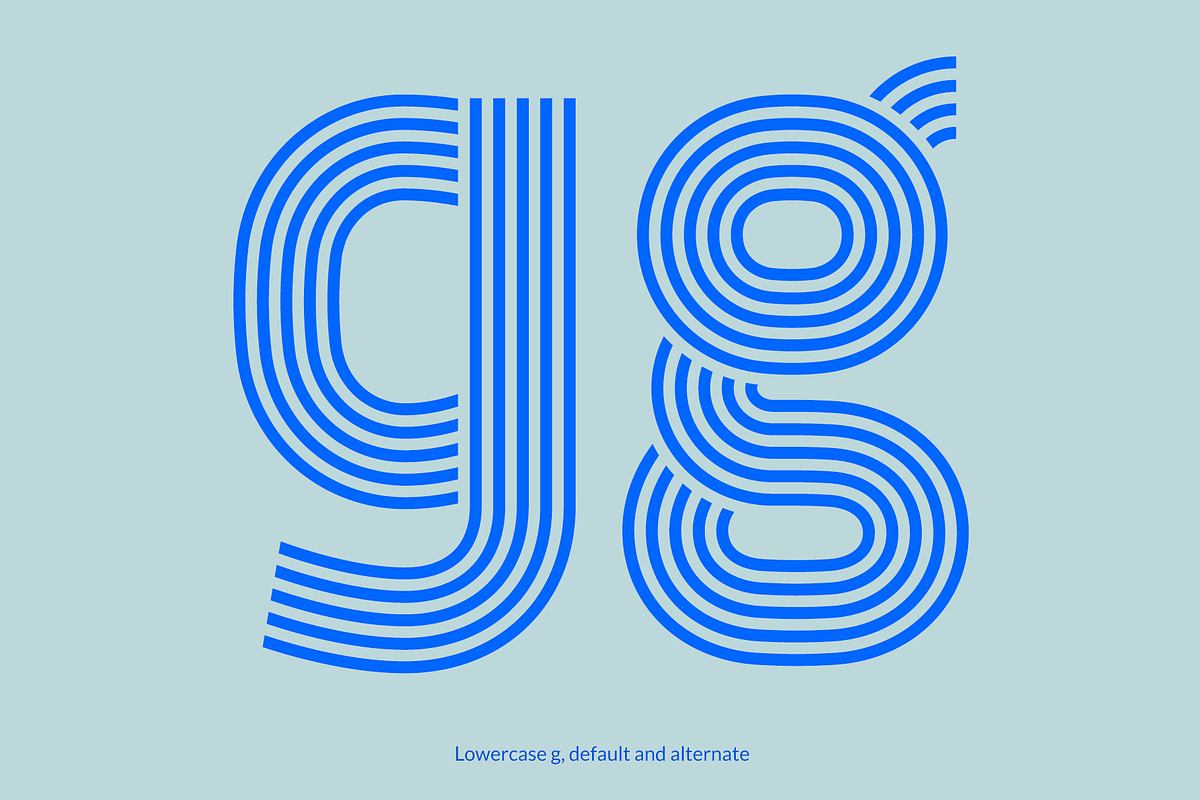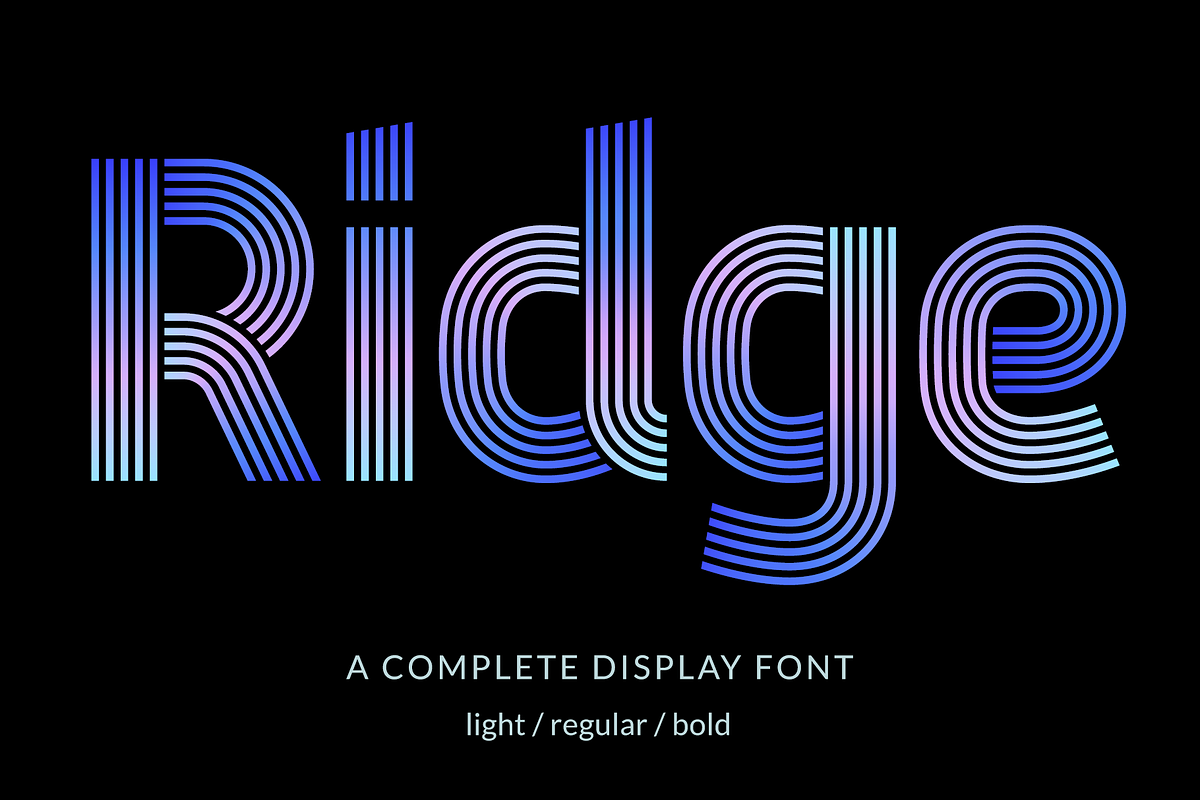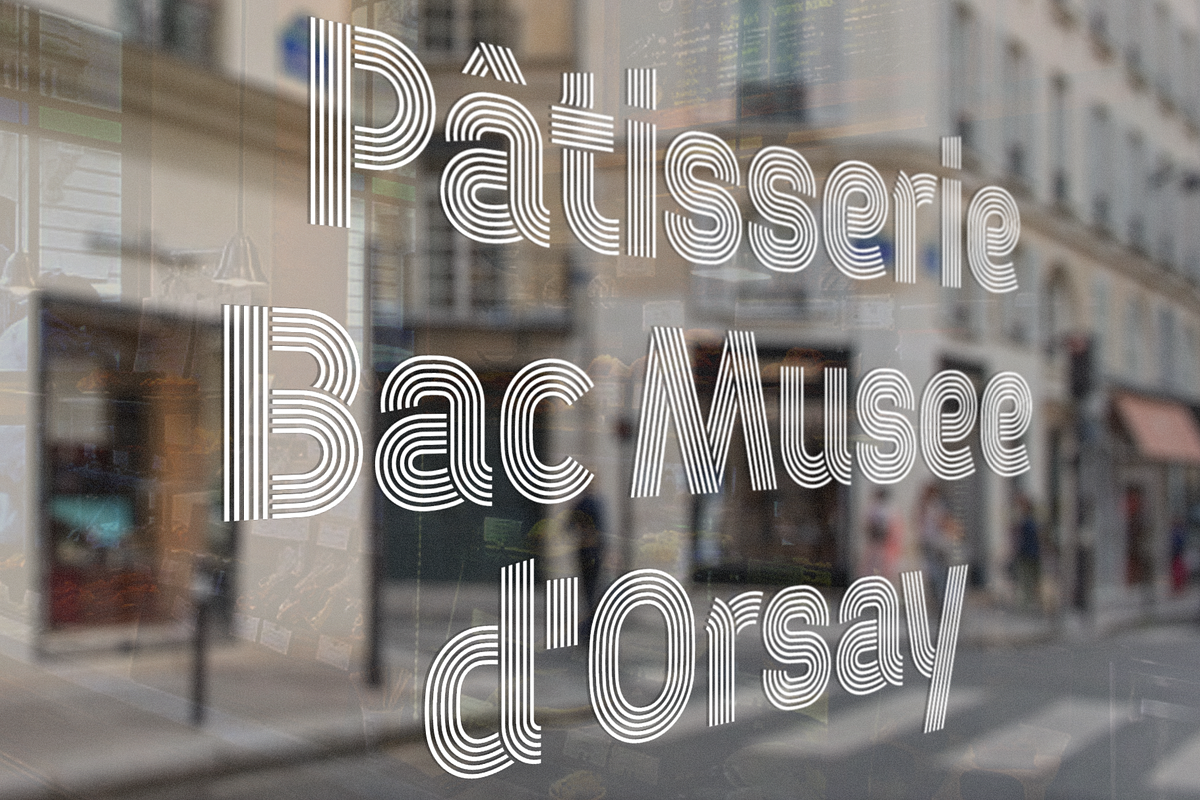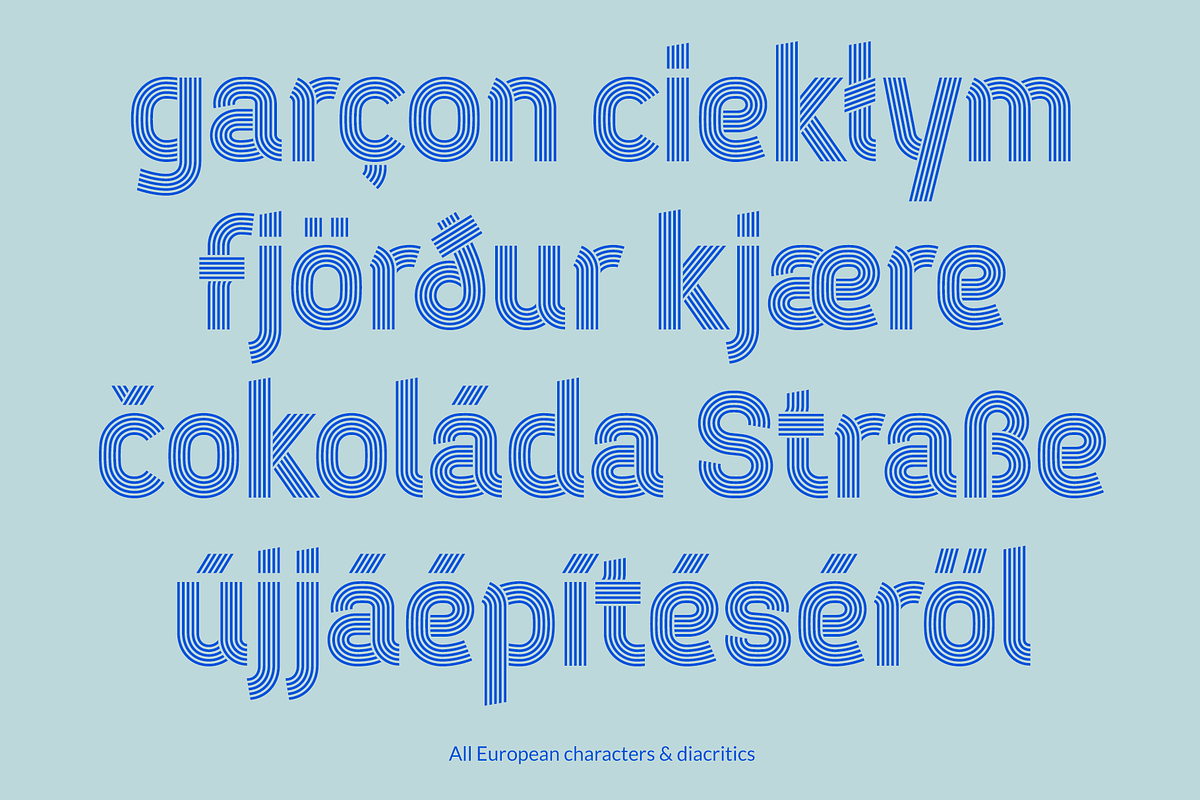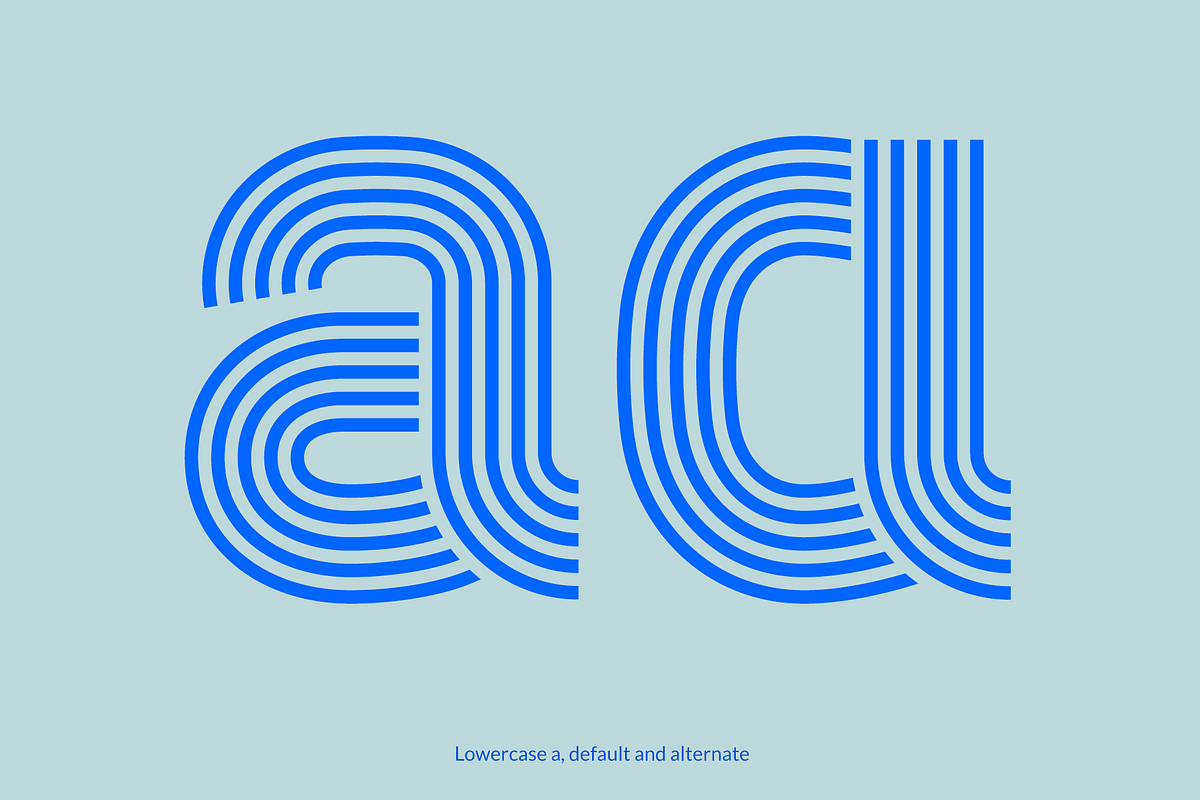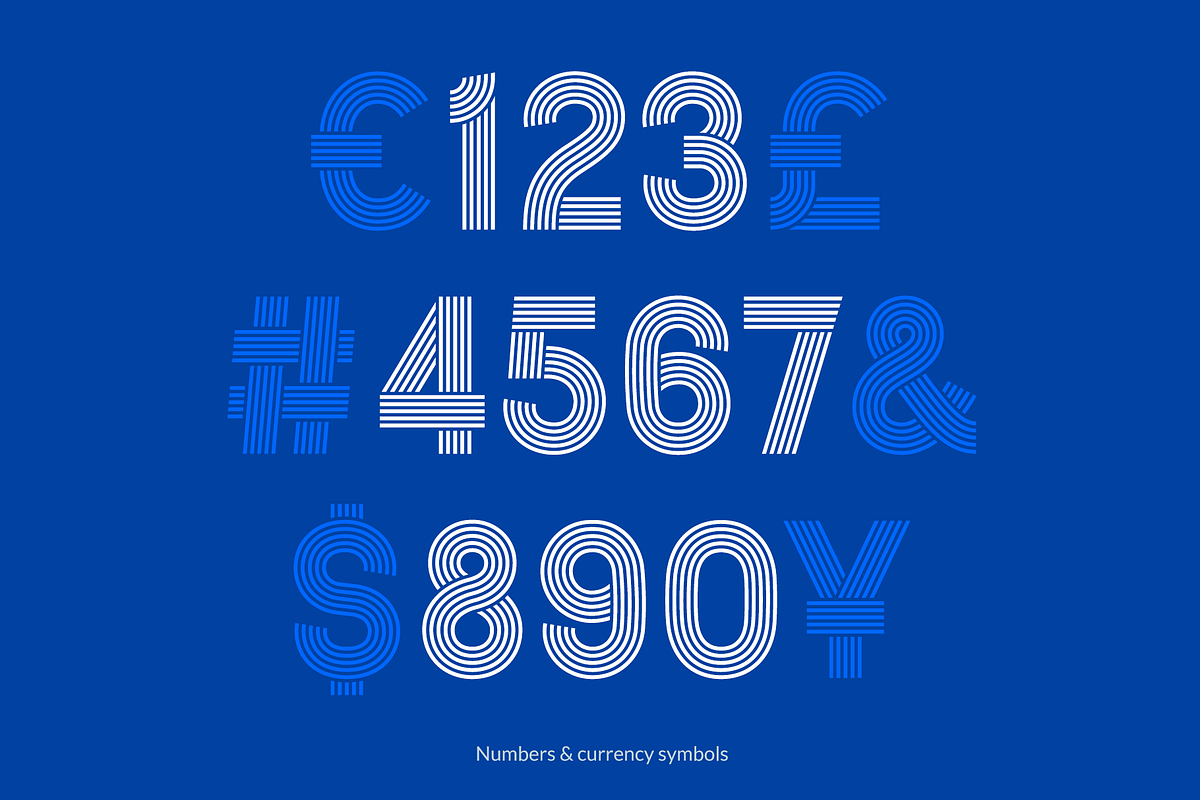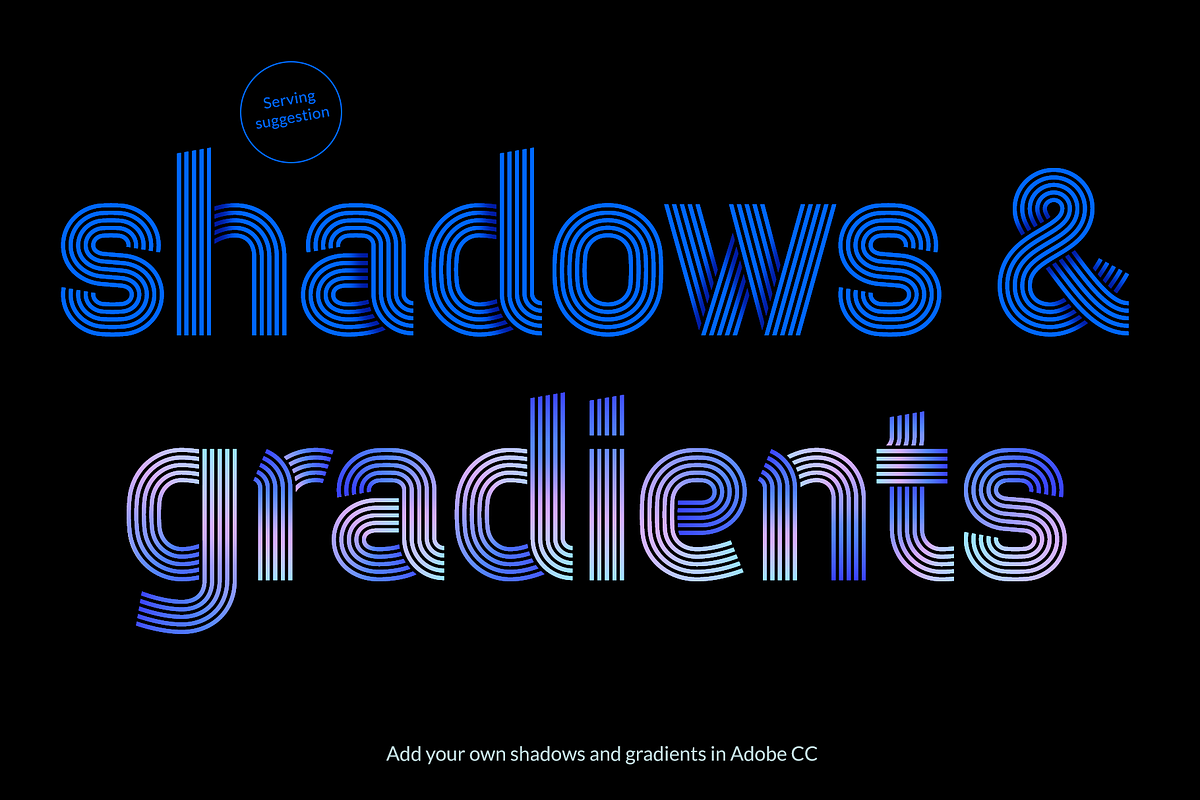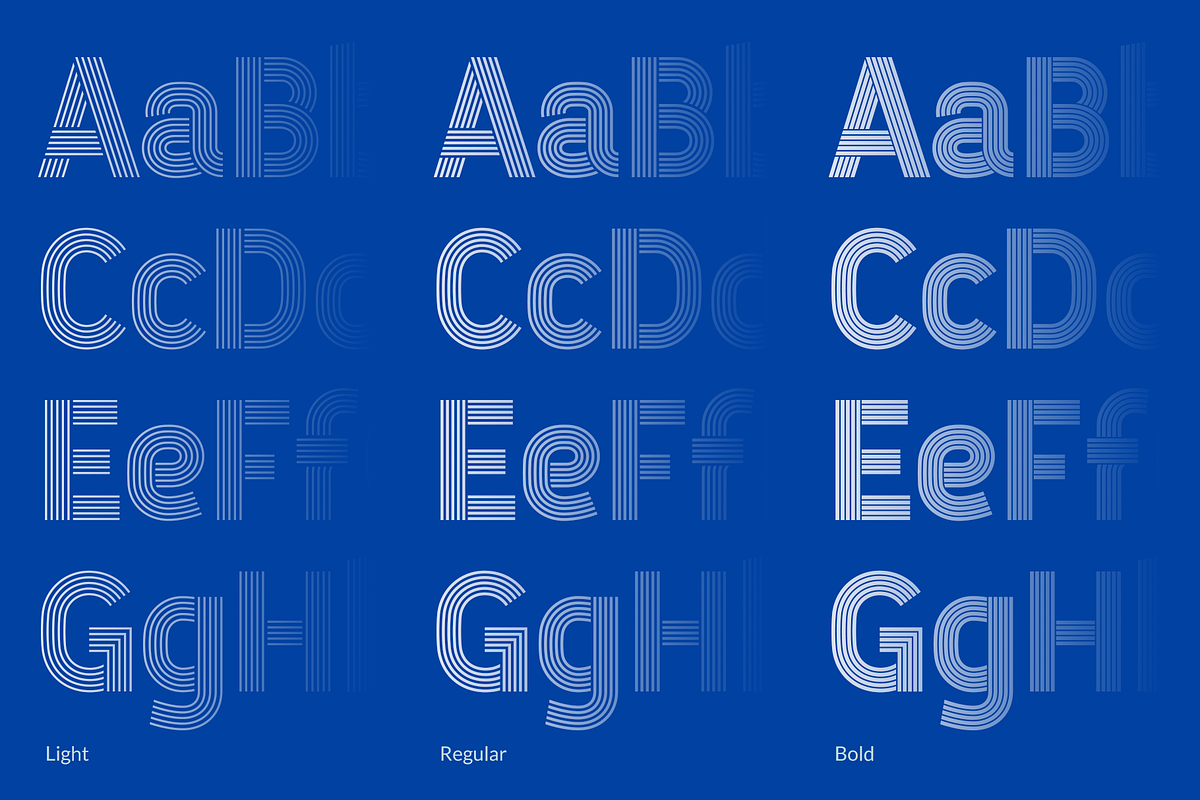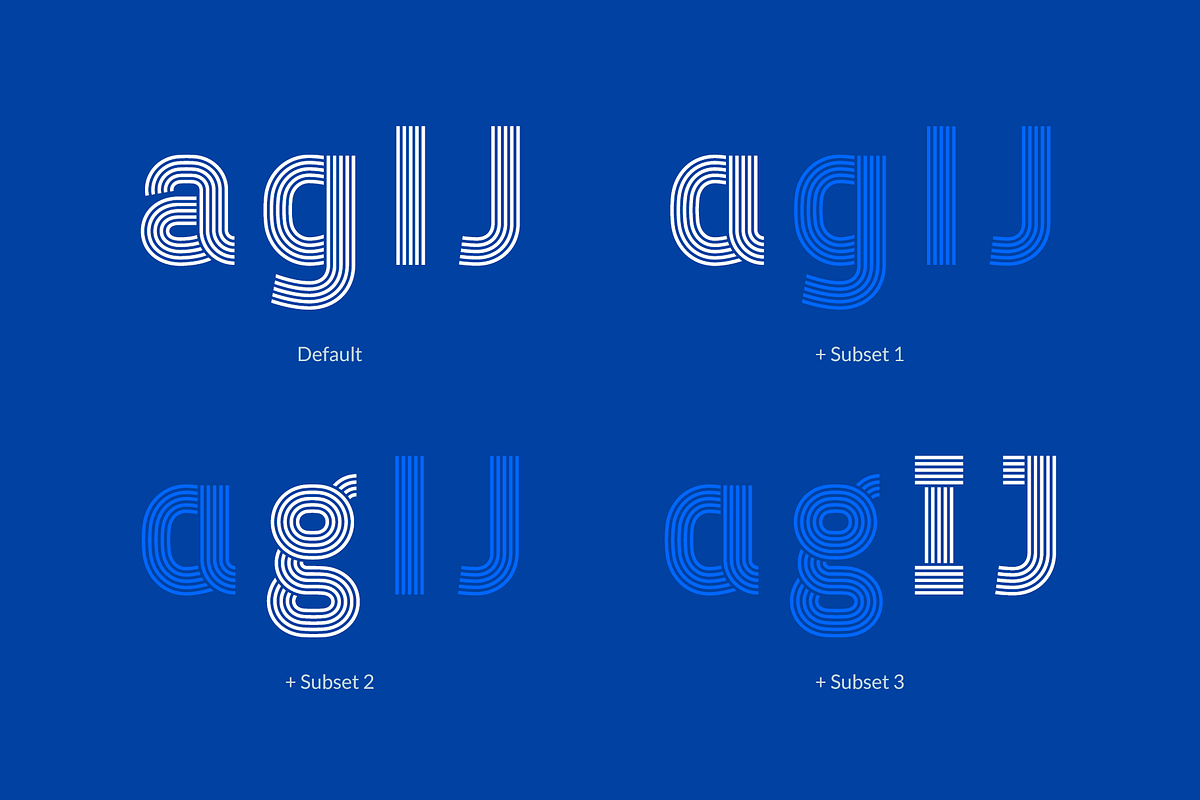
Ridge 5
Ridge 5 was designed from the need for a complete multi-line font that's not limited to only uppercase, but also includes lowercase and all European diacritics. In addition, alternate characters have been added to the font, giving graphic designers and art directors even more design options.
It is a full display font with three weights (light, regular & bold) that's remarkably suitable for use on packaging and posters, logos and big headlines in books and magazines. The shapes are geometric with a natural flow, giving it a unique appearance.
- unique complete multi line font with uppercase, lowercase, punctuation etc.
- multilingual support with accented characters
- useful alternates